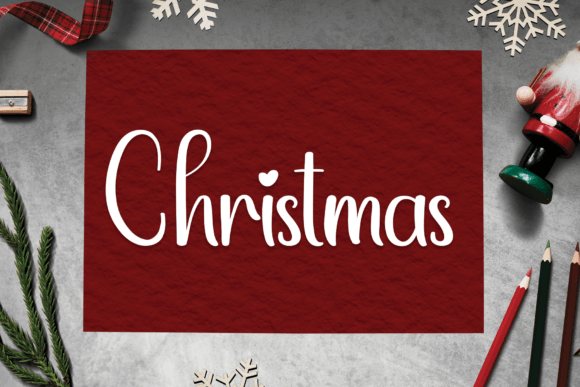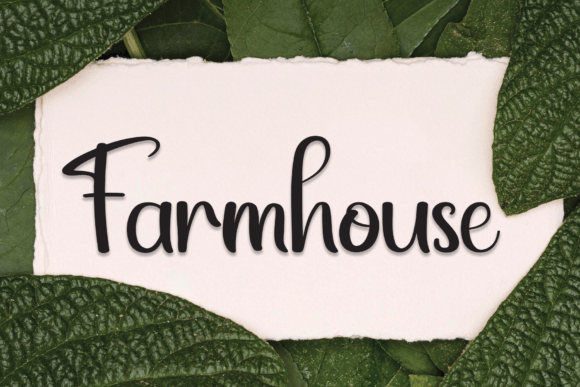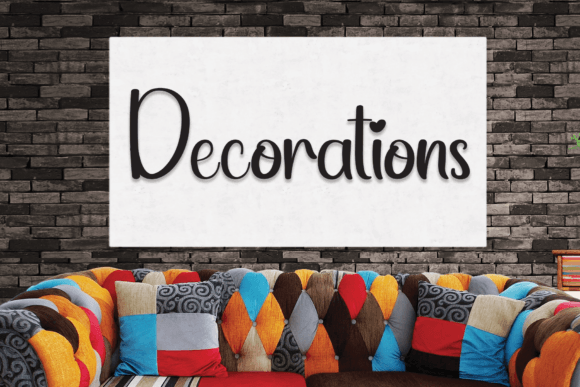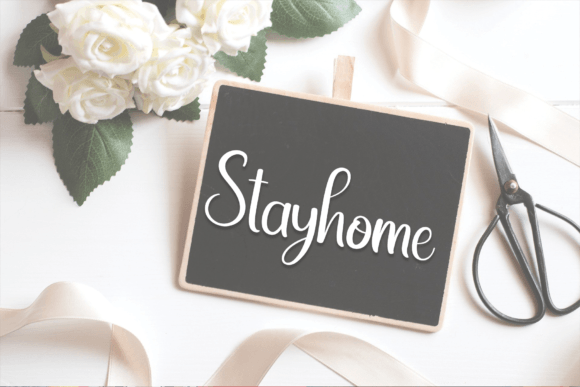
Panther Font
Add a natural and welcoming feel to your creative projects with the Panther font. This simple and friendly handwritten script is designed to be your favorite font for a wide range of occasions. Whether you’re crafting, designing digitally, preparing presentations, or creating greeting cards, Panther fits perfectly.
The Panther font features clean and easy-to-read strokes that add warmth and charm to any design. Its versatile style allows it to be used across multiple creative fields, making your projects feel personal and inviting.
You can use the Panther font for crafts, digital designs, presentations, and card-making. Its approachable and casual style makes it perfect for projects that aim to connect with audiences through a natural handwritten look. This font is ideal for anyone seeking a neat and friendly handwritten script.
Despite its simple appearance, the Panther font maintains excellent readability at various sizes. Whether used for bold headlines or smaller text elements, it guarantees clarity and style.
Using the Panther font will give your projects a genuine and inviting character. If you want a handwritten font that’s versatile and easy to use, this font is a great addition to your collection.
In summary, the Panther font is a simple, friendly, and versatile handwritten script. Perfect for crafts, digital designs, presentations, and greeting cards, it brings warmth and personality to every project. Download it today and make your designs more inviting with Panther.